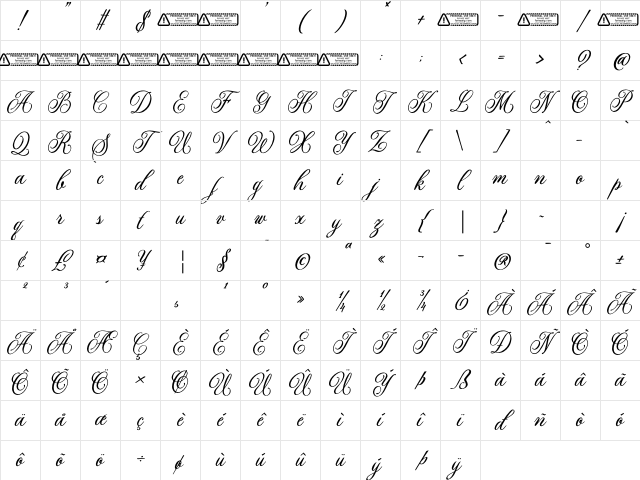
Alexina Regular Free Font
Alexina Regular
Foundry: Kong Font
Designer: Kong Font
Complete Alexina Regular glyph index. Displaying only characters natively supported by Alexina Regular font.
Design Context for Alexina
Alexina is a composed and adaptable typeface that performs quietly and consistently across a wide range of design contexts.